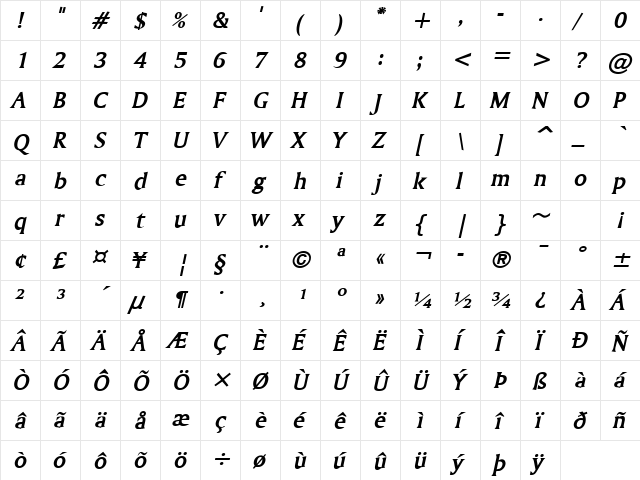
Ameretto Bold Italic Font Preview
Design Context for Ameretto Typeface
Ameretto takes a measured approach to typography — its balanced proportions and neutral character make it a reliable workhorse for both digital and print work. Its italic angle brings a sense of urgency and motion to the letterforms. The heavy weight commands attention and anchors typographic hierarchies.
Pro Tip: Try Ameretto for annotation and caption copy alongside an upright companion — the contrast in angle creates a dynamic but ordered typographic system.